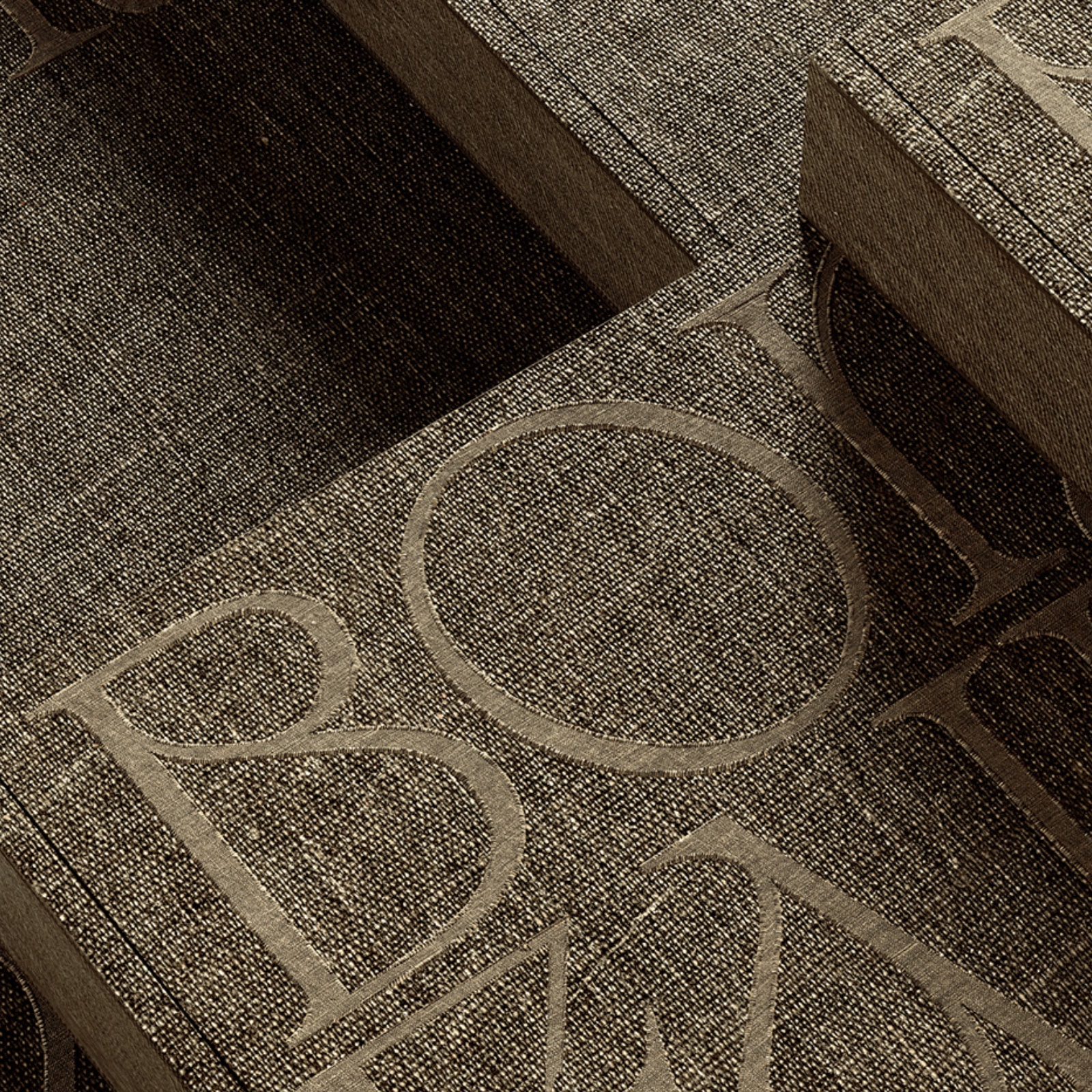
Discover Galnoy, a serif typeface blending Gothic, Art Nouveau, and modern influences for striking typography.
Galnoy is a serif typeface that reimagines the elegance of Garalde fonts with a bold reinterpretation of Baroque influences, drawing from Gothic art and Art Nouveau. Designed by bydani, Galnoy stands out as a versatile option for designers looking to balance tradition and modernity in typography and font design.
The Design Language of Galnoy
At its core, Galnoy celebrates the rich detailing of historic typefaces while adapting them for contemporary use. The fusion of Baroque-inspired curves with modern clarity results in a typeface that maintains strong readability while offering a unique character. This balance makes it particularly effective for headings, branding, and display typography, where visual impact is key.
Versatility in Weights and Usage
Galnoy is available in a complete family of 12 weights, ranging from light to ultrabold, with dedicated styles for display, headings, and text. The availability of a variable font ensures flexibility in digital and print applications. The full package also includes OpenType features and Latin Extended A support, enhancing its usability across multiple languages and design needs.
Where Galnoy Shines
Galnoy’s strength lies in its adaptability. While its bold display weight makes a statement in titles and posters, the text weights offer refined readability for editorial design, websites, and branding materials. The structured yet fluid forms provide a sophisticated aesthetic that enhances creative projects without overpowering the design.
Exploring Galnoy
Final Thoughts
Galnoy stands as an impressive example of how typography can bridge the past and present. Whether used for branding, print, or web design, its thoughtful balance of classic elegance and modern minimalism makes it a valuable asset in any designer’s toolkit.